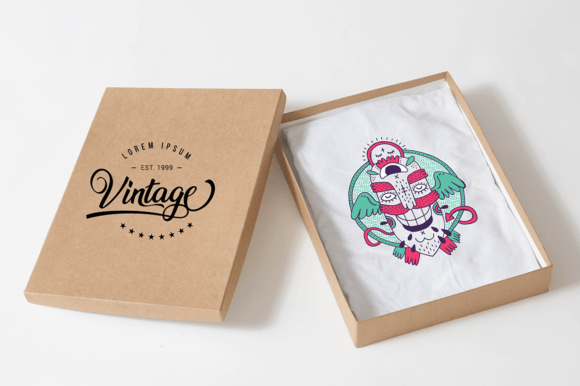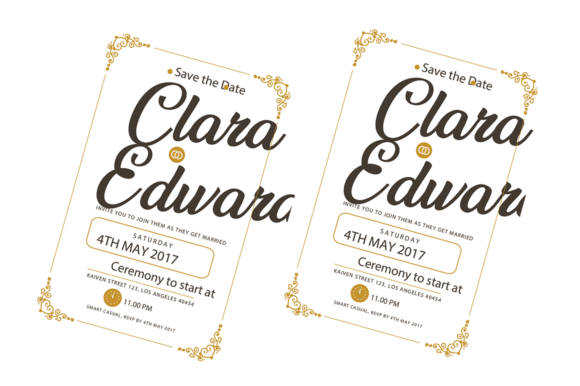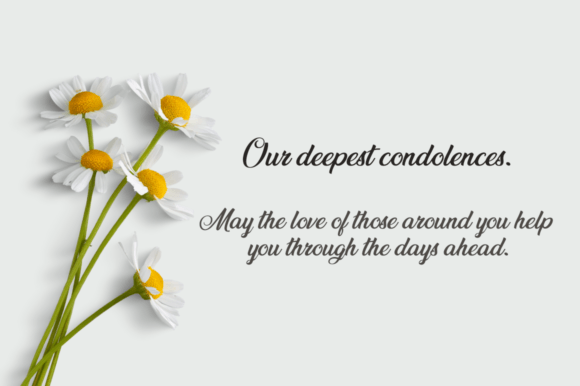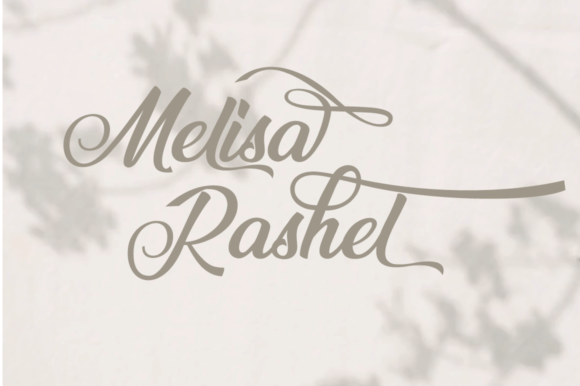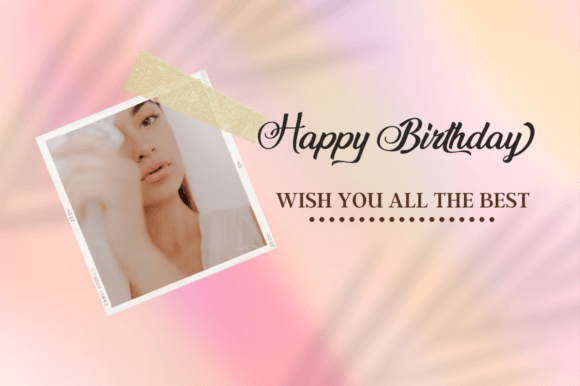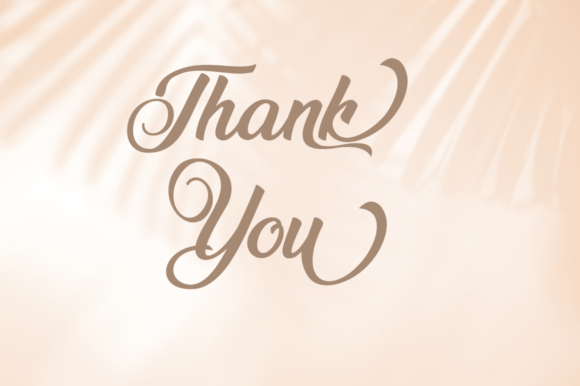
Introduction to Keningan Font
Have you ever found yourself staring at a blank page, trying to bring a creative project to life? The blank space can be daunting, but the right font can be the spark that sets your imagination ablaze. For designers, a high-quality font can be the difference between a good design and a great one.
Enter Keningan Font, a modern calligraphy font that’s as beautiful as it is versatile. With its casual, swashy strokes, Keningan Font is perfect for everything from logos and product packaging to wedding invitations and book covers. Whether you’re working on a branding project or a personal design, this font is sure to add a touch of elegance and sophistication.
One of the best things about Keningan Font is that it’s available for free download, making it a valuable resource for designers of all levels. With its transparent background, you can easily layer it over other design elements to create a unique and eye-catching look. So why settle for a generic font when you can elevate your design with the beautiful, high-quality Keningan Font?
Key Features of Keningan Font
- High-quality design: Keningan Font offers a unique and stylish design that can elevate any creative project.
- Transparent background: This font features a transparent background, making it perfect for use on images with complex backgrounds.
- High-resolution design: Keningan Font is designed at 300 DPI, making it perfect for use in high-resolution designs and prints.
- Unique characteristics: This font features a unique blend of modern and vintage elements, making it perfect for use in creative projects that require a touch of elegance and sophistication.
Honest Review: Keningan Font
I recently had the chance to work with the Keningan Font, and I must say, it’s been a game-changer for my creative projects. This free download has been a reliable design resource that never fails to impress.
- What works well: ✨ The Keningan Font is incredibly versatile and can be used for a wide range of designs, from elegant headings to clean and modern body text. Its high quality is evident in its crisp lines and well-spaced letters.
- What works well: ✨ The font also comes with a transparent background, making it easy to layer over other design elements and achieve a seamless look.
However, I do have to mention a few limitations: ⚠️ The font is not ideal for complex text arrangements, as the letters can sometimes overlap or get too close together. Additionally, the font may not be suitable for very small text sizes, as the lines can become too thin.
Overall, I’m thoroughly impressed with the Keningan Font. It’s a high-quality design resource that has become a staple in my creative workflow. If you’re looking for a reliable font for your next project, I highly recommend giving it a try.
The Keningan Font is a high-quality design resource perfect for creative projects. It’s available for free download and features a transparent background, making it easy to incorporate into various designs.
Tips for Getting the Most Out of Keningan Font
Use the Keningan Font for headings, titles, and other prominent text elements to add a touch of elegance to your design. Experiment with different font sizes and colors to create visual interest.
The Keningan Font is perfect for:
- Designing business cards and letterheads.
- Creating presentations and reports.
- Developing branding materials and marketing collateral.